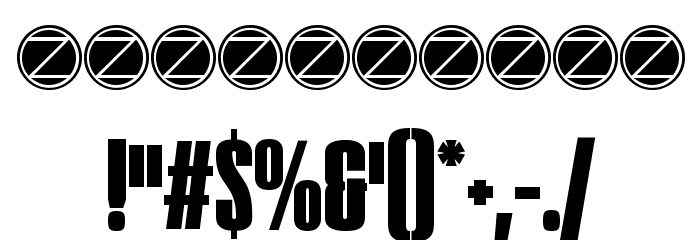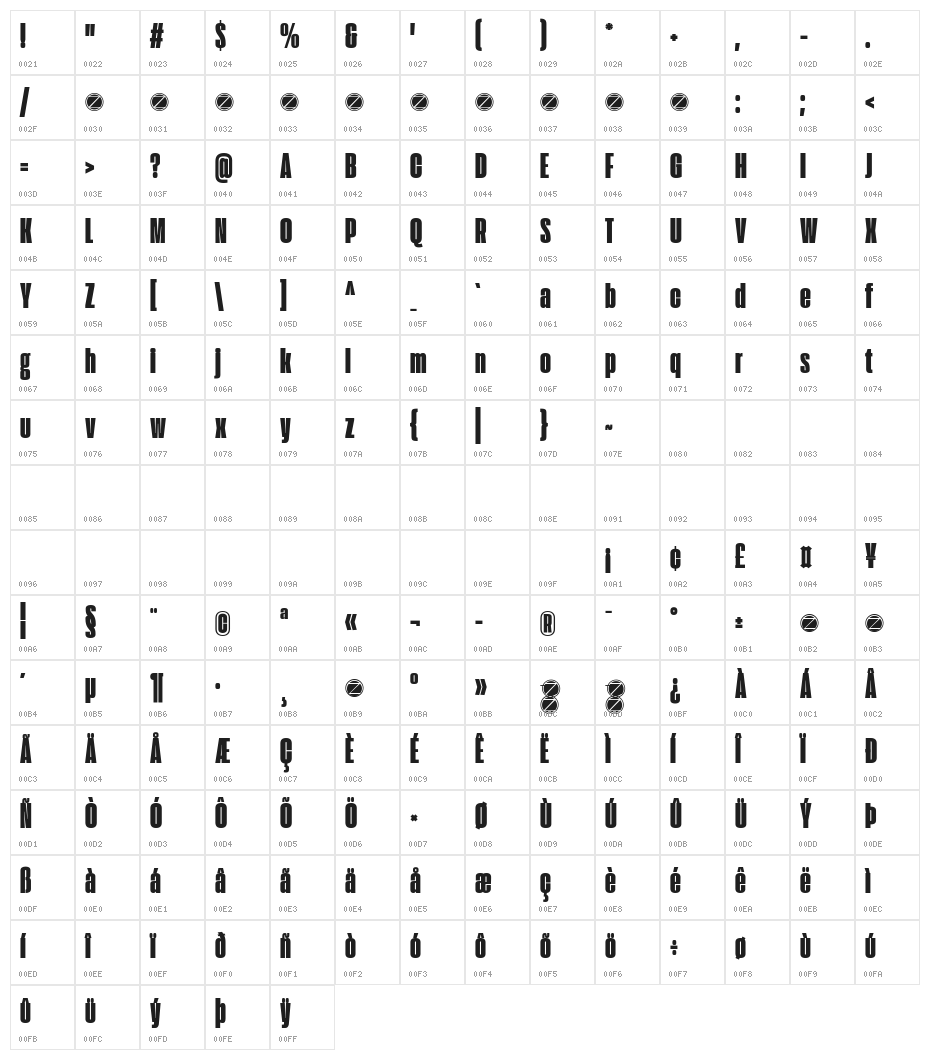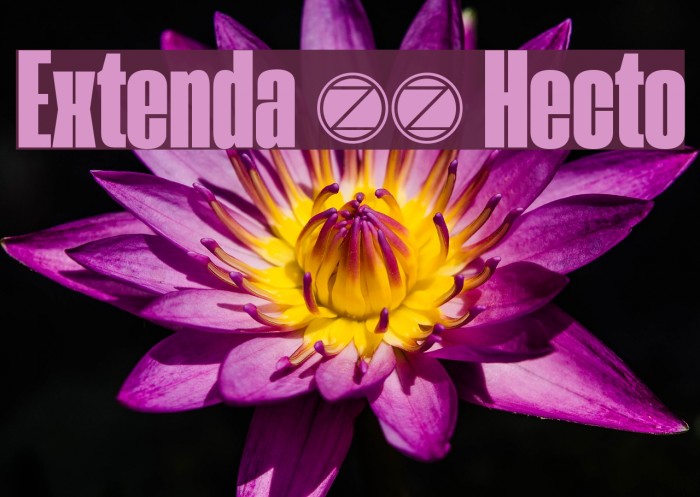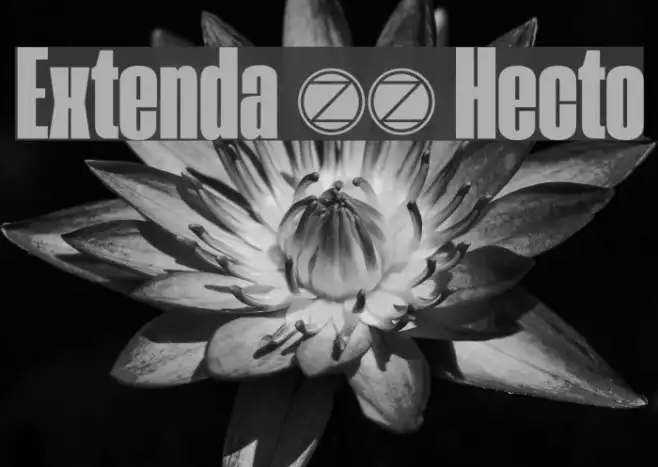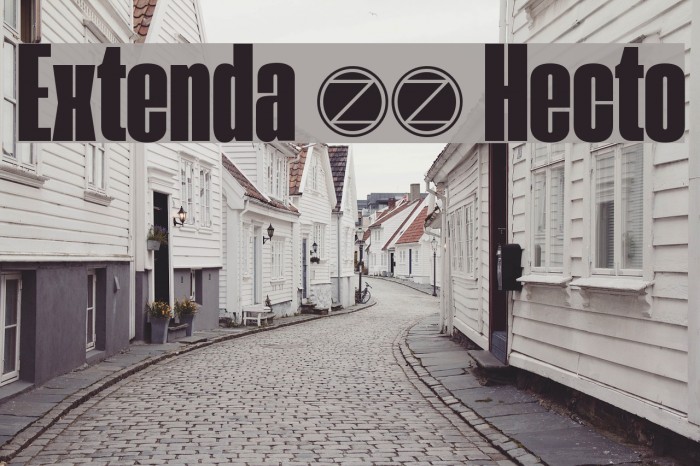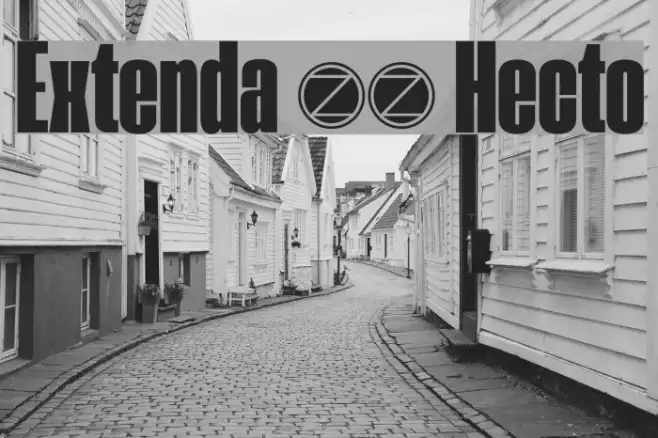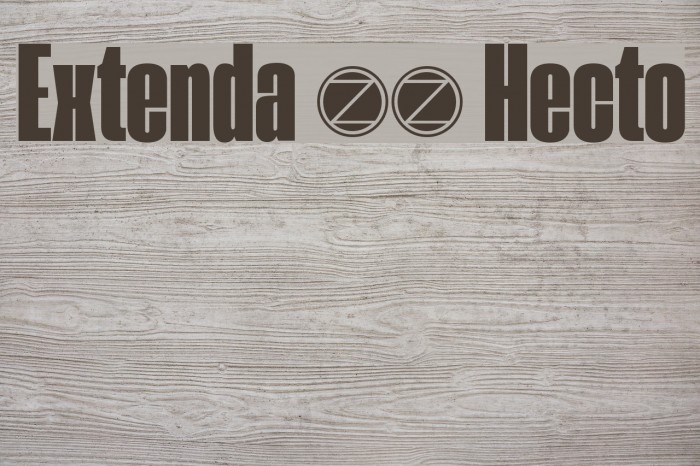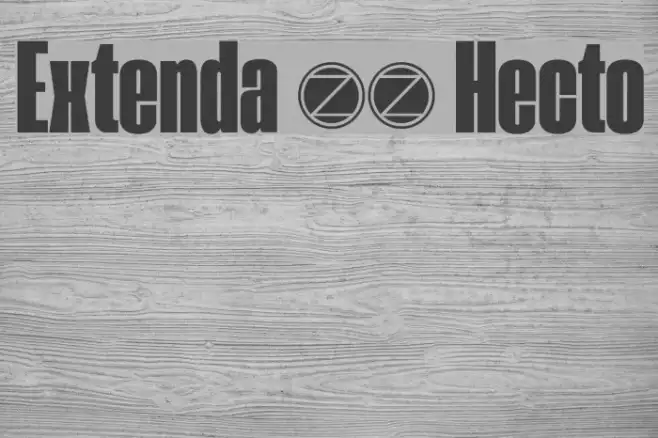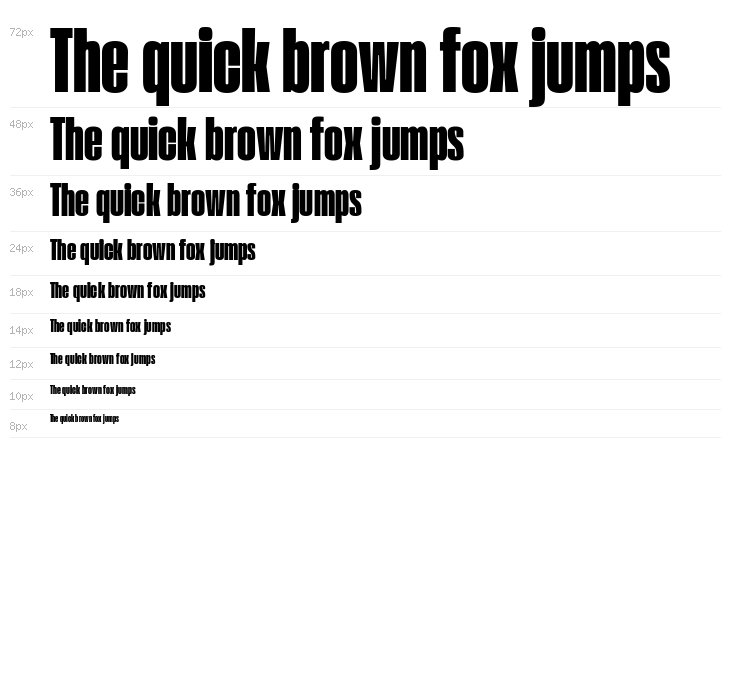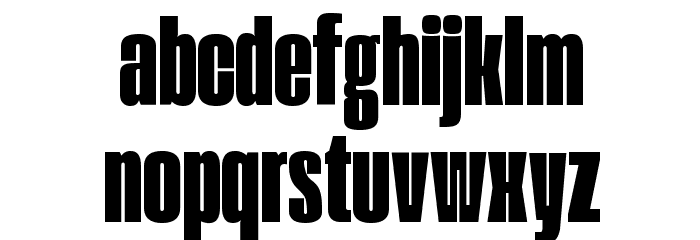
Extenda 40 Hecto Font
Extenda 40 Hecto Description
This bold and impactful font features thick, uniform strokes that create a strong visual presence. The uppercase and lowercase letters are designed with a consistent width, giving the typeface a cohesive and solid appearance. The characters are tightly spaced, enhancing the boldness and making it ideal for attention-grabbing headlines. The font includes a full set of uppercase and lowercase letters, numbers, and a variety of special characters, making it versatile for various design needs. Its high contrast between the thick strokes and the negative space ensures readability while maintaining a striking aesthetic.